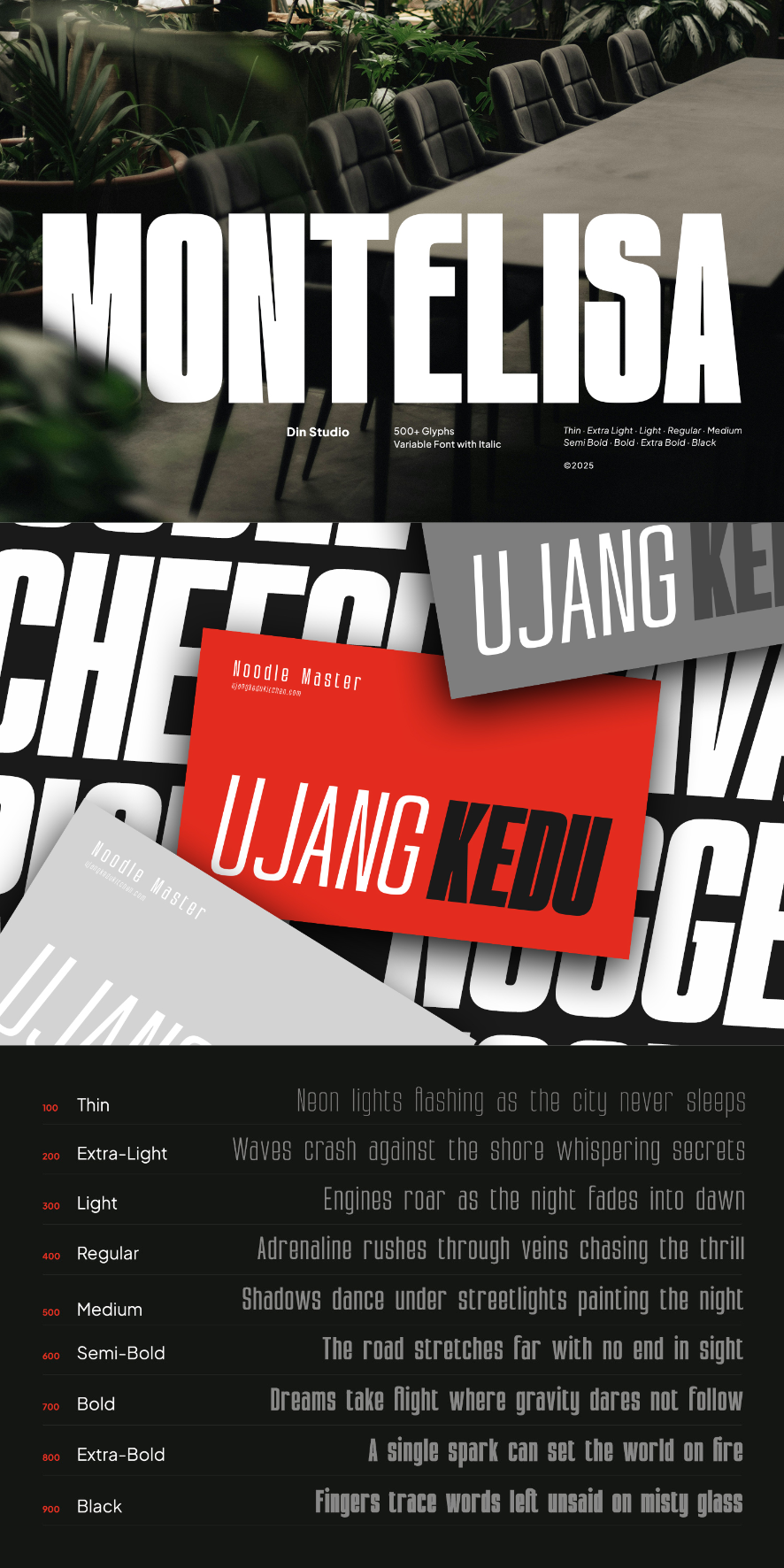
Montelisa Font
About Montelisa
Montelisa is a bold and refined display sans serif font family with tall, clean letterforms and seamless transitions from thin to thick. With 9 powerful weights, italic styles, and full variable font control over weight and slant, Montelisa is built to command attention in the modern graphic design era. In addition, enjoy the features here.
Montelisa’s different weight fonts :
- Thin (Regular/Italic)
- Extra Light (Regular/Italic)
- Light (Regular/Italic)
- Regular (Regular/Italic)
- Medium (Regular/Italic)
- Semi Bold (Regular/Italic)
- Bold (Regular/Italic)
- Extra Bold (Regular/Italic)
- Black (Regular/Italic)
Montelisa fits in bold branding, packaging, posters, billboards, headlines, and many more designs. Find out more ways to use this font by taking a look at the font preview.